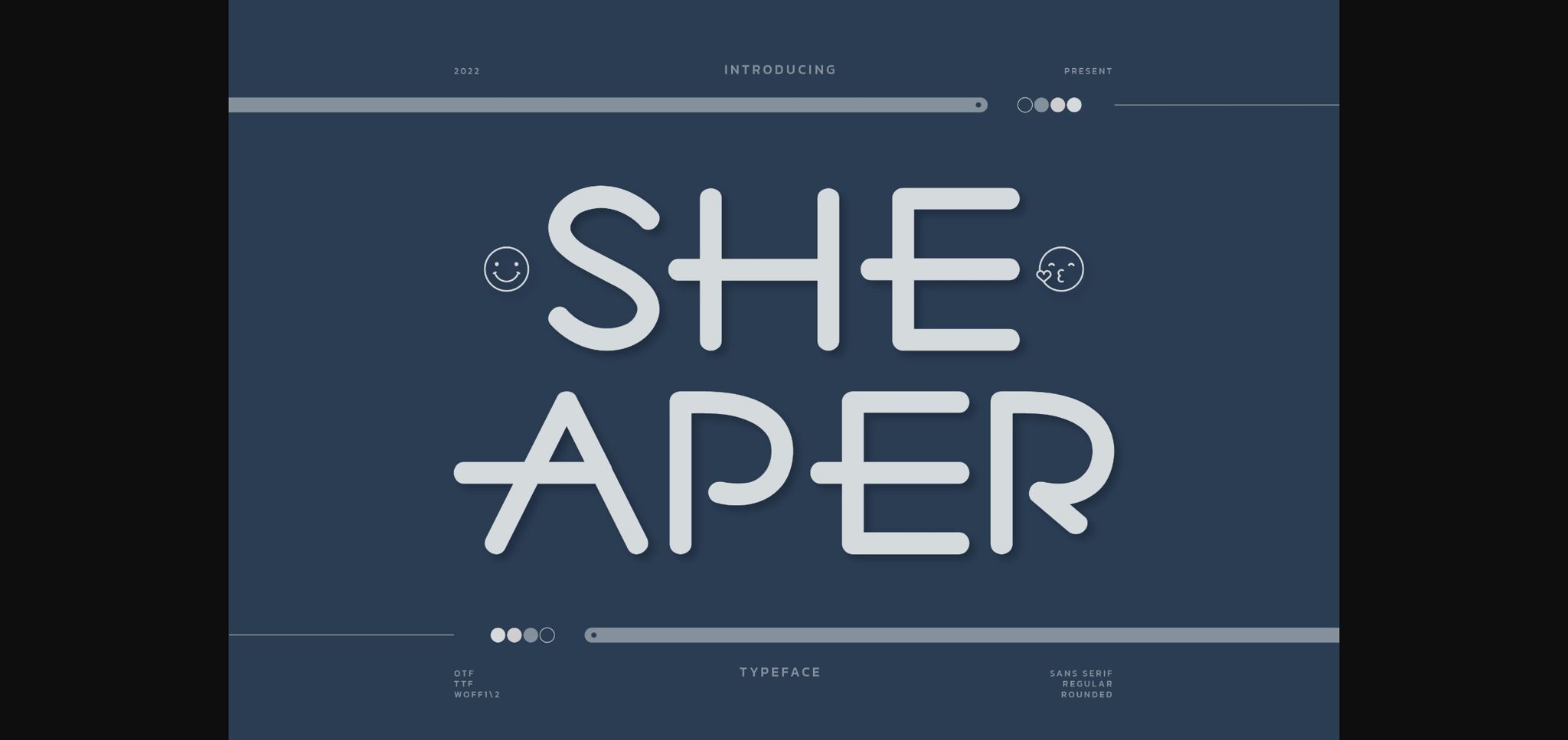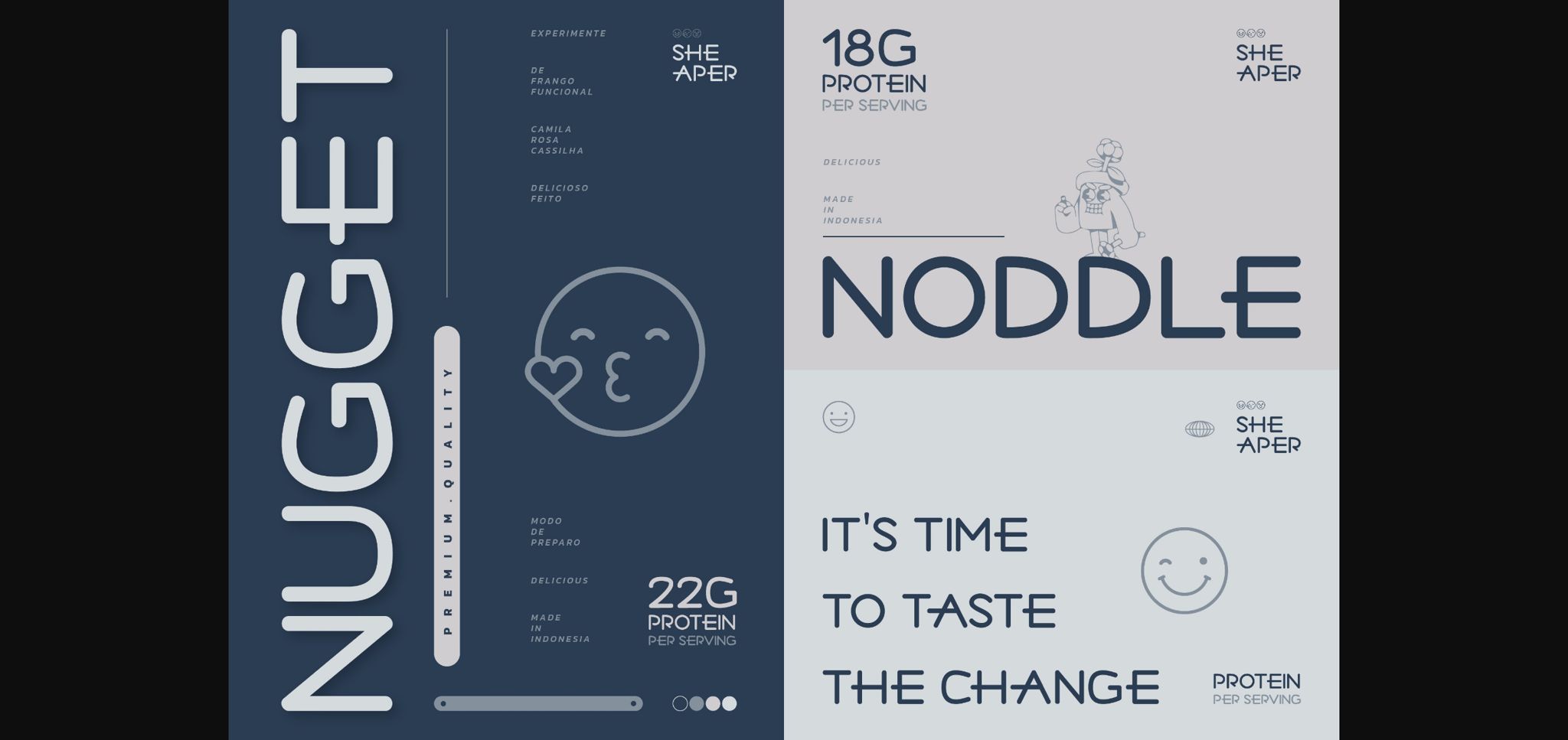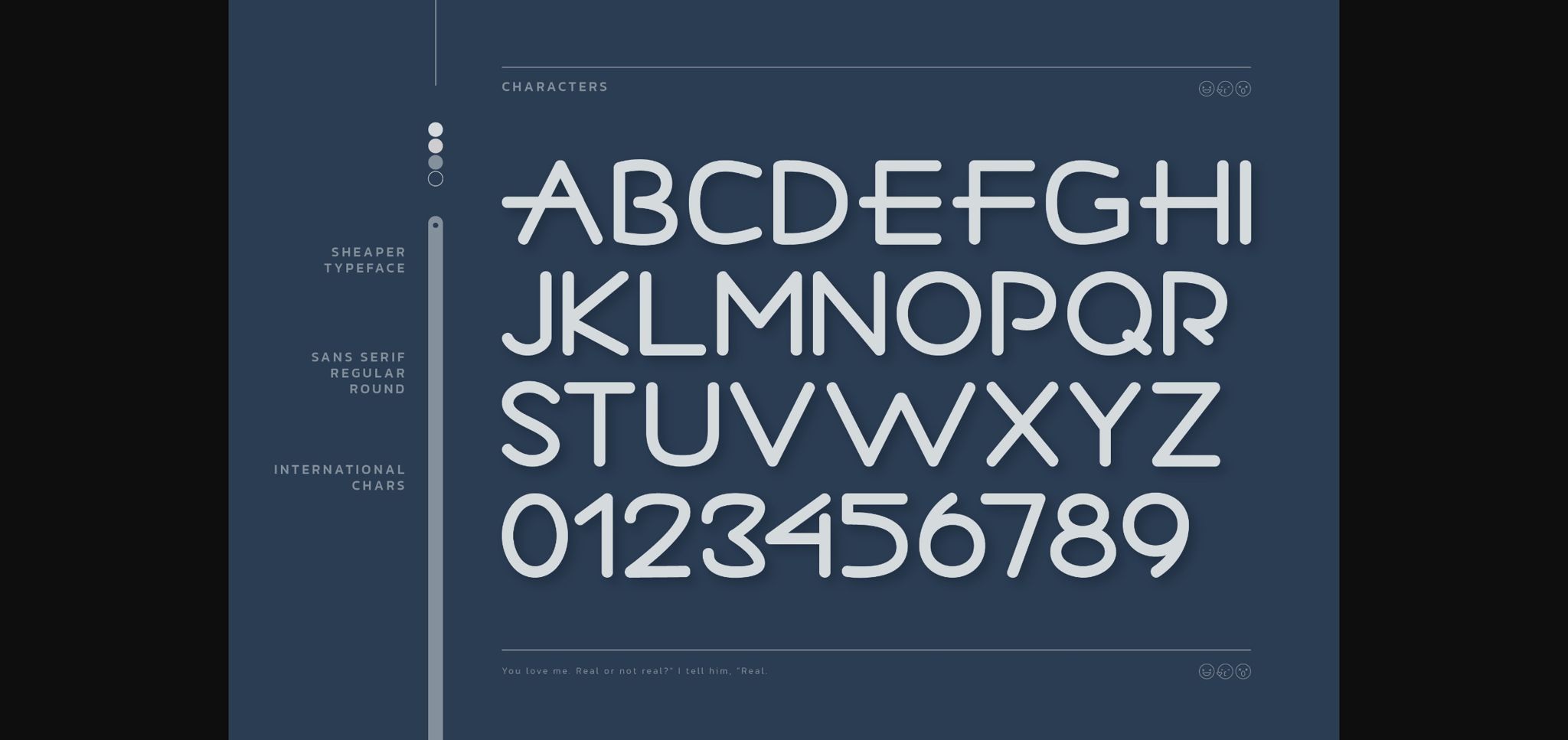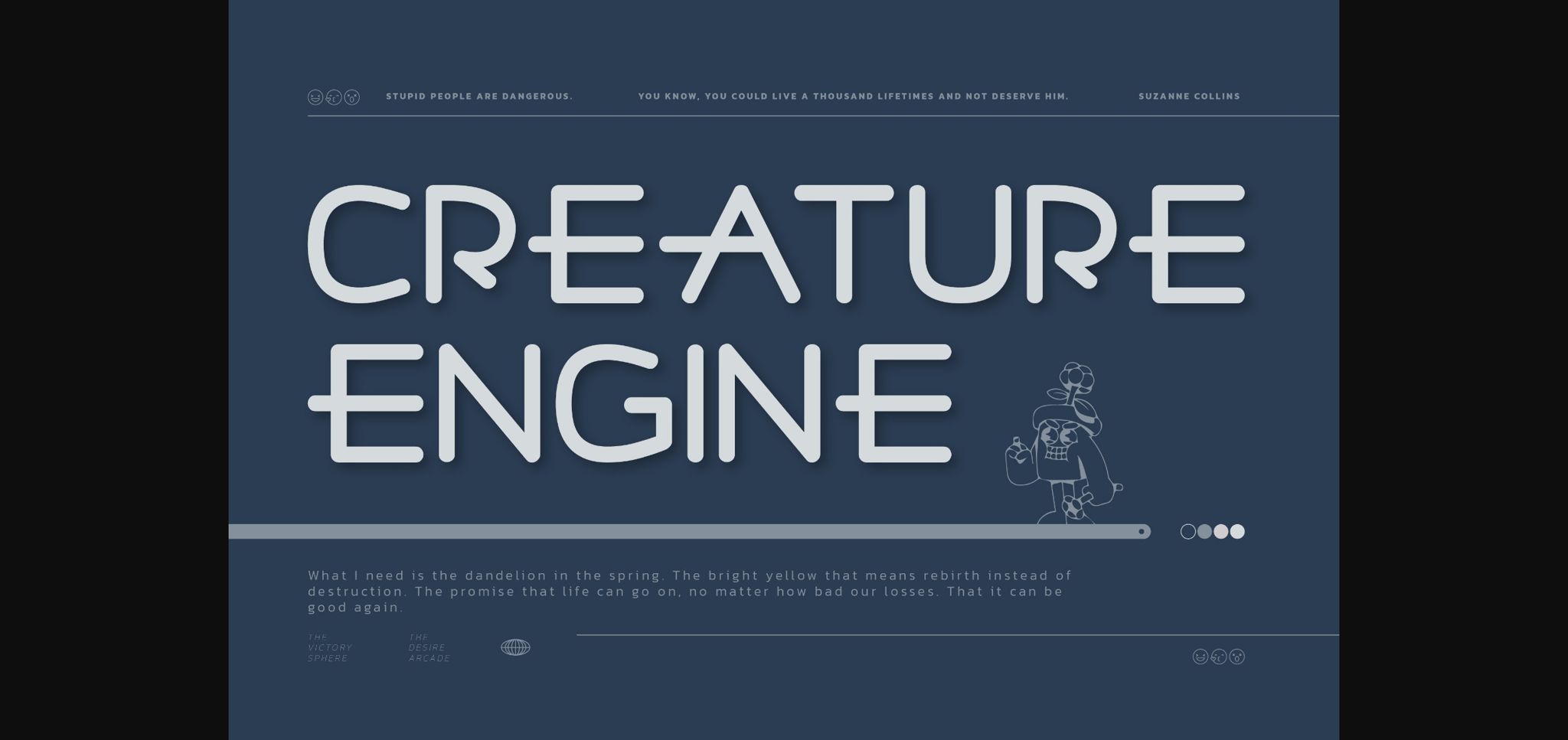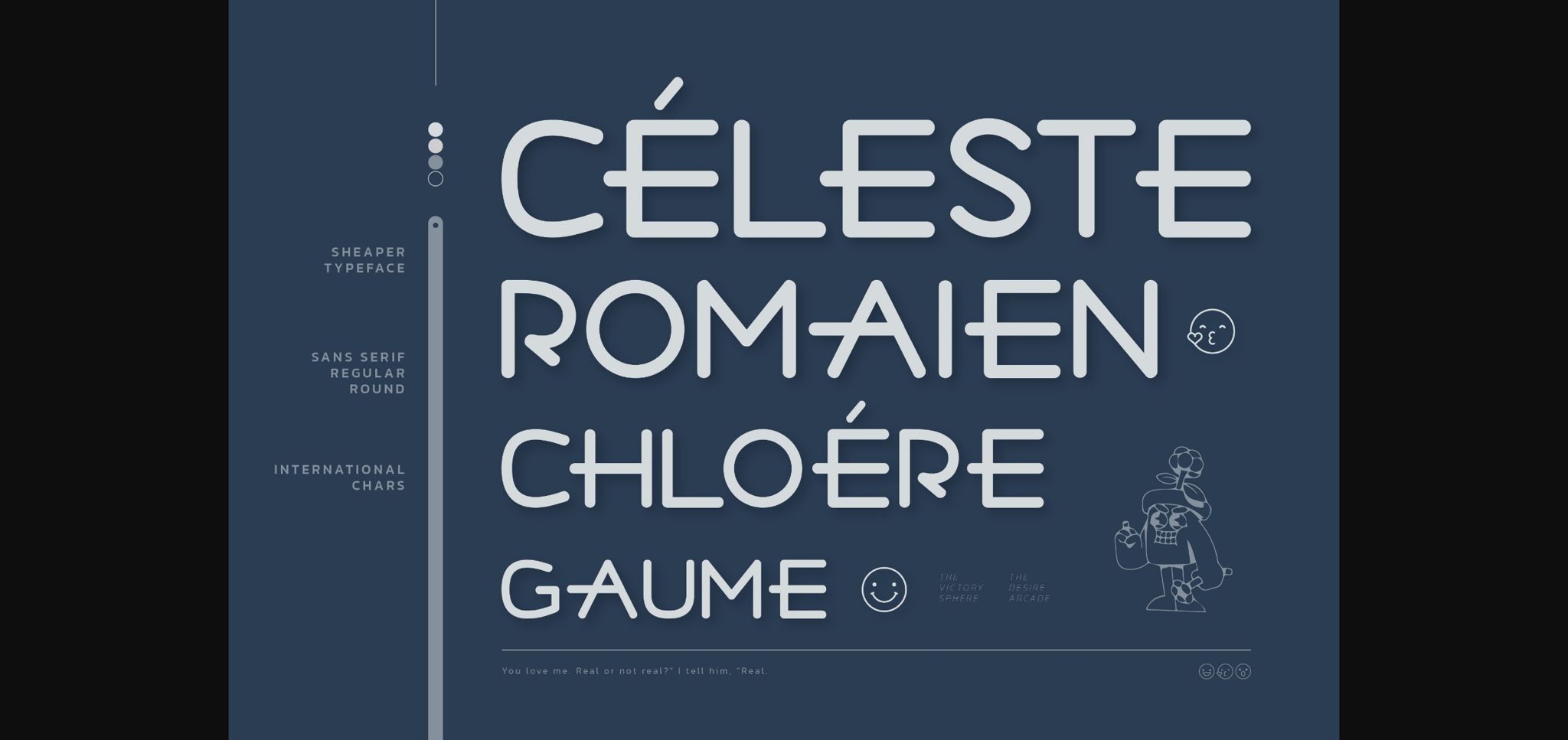
About Sheaper Font
Sheaper is a stylish and smooth sans serif font. Fall in love with its natural and unique style and use it to create stunning designs!